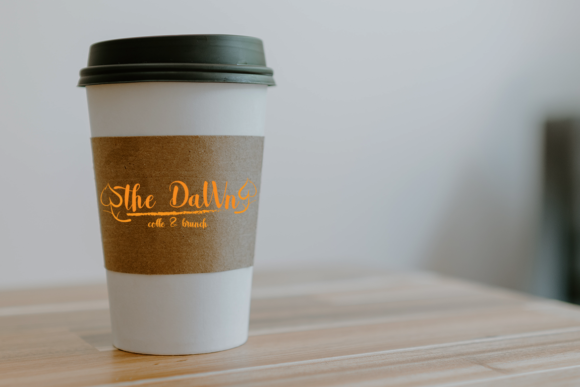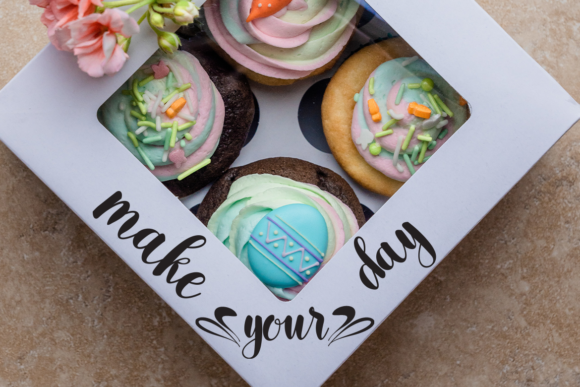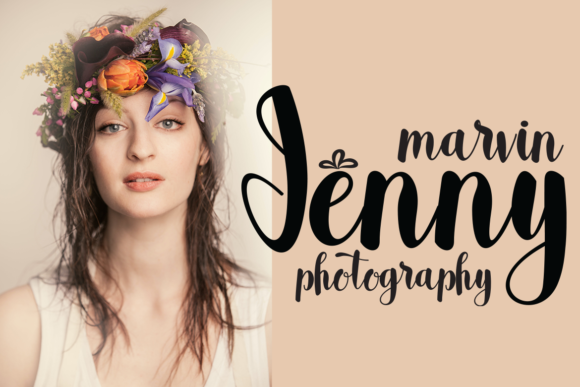
The Ultimate Guide to Anthracite Font: Elevate Your Designs with this Whimsical Script Font
I’ll never forget the time I was working on a project for a client who wanted a font that was both elegant and playful. I spent hours scouring the internet for the perfect font, but nothing seemed to fit the bill. That was until I stumbled upon Anthracite Font. This whimsical script font has been a game-changer for my designs, and I’m excited to share its features and benefits with you.
A Personal Review of Anthracite Font
So, what makes Anthracite Font so special? Here are a few things I love about this font:
- ✨ Unique and eye-catching design that’s perfect for making a statement
- 💫 Features a range of OpenType features, including glyphs and stylistic alternates
- 🎨 Versatile and can be used for a wide range of design projects, from branding to invitations
Of course, no font is perfect, and Anthracite Font does have a few small quirks:
- 🤔 Some users may find the font a bit too ornate for certain projects
- ⚠️ May not be suitable for very long blocks of text, as it can be a bit too decorative
The Story Behind Anthracite Font
Anthracite Font was designed by a team of typographers who wanted to create a font that was both elegant and playful. Inspired by the natural world, Anthracite Font features a unique and eye-catching design that’s perfect for making a statement.
| Font Name | Anthracite Font |
| Author | WinType |
| What is Anthracite Font? | Anthracite Font is a whimsical script font with a relaxed theme, featuring a lovely style. |
| What can I use Anthracite Font for? | Anthracite Font can be used for a wide range of design projects, from branding to invitations, and even long-form text. |
| Is Anthracite Font easy to read? | Yes, Anthracite Font is highly legible, even at small font sizes. |